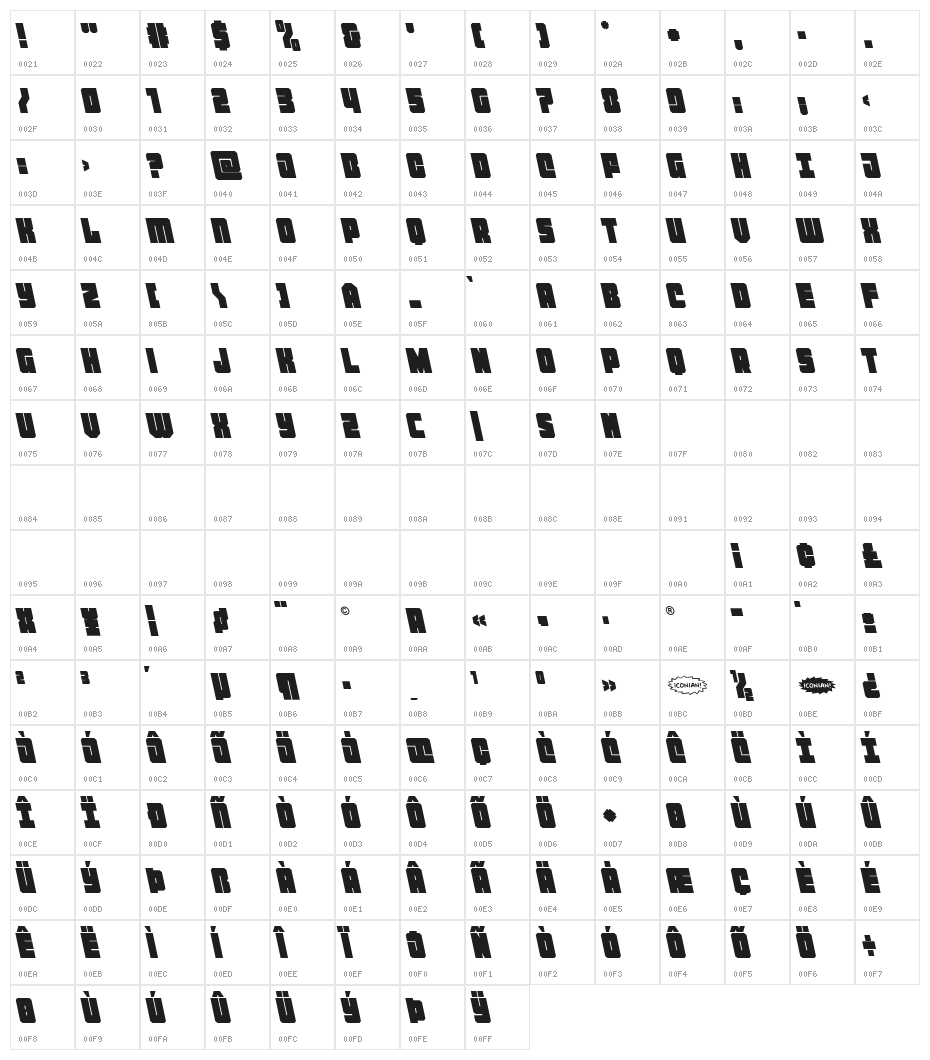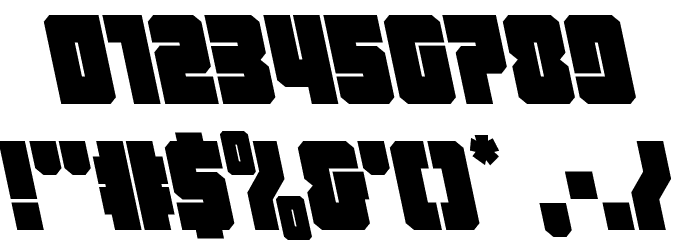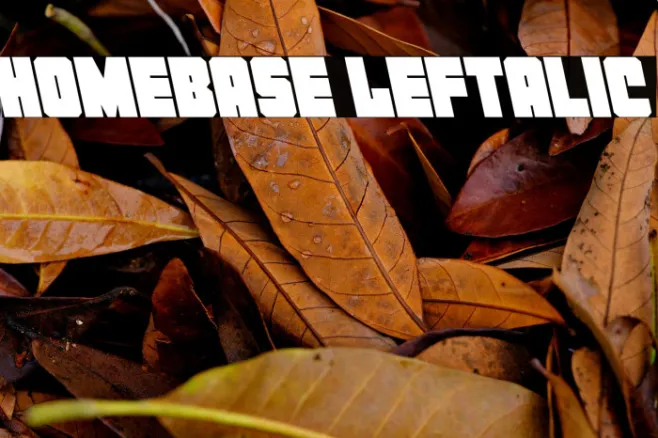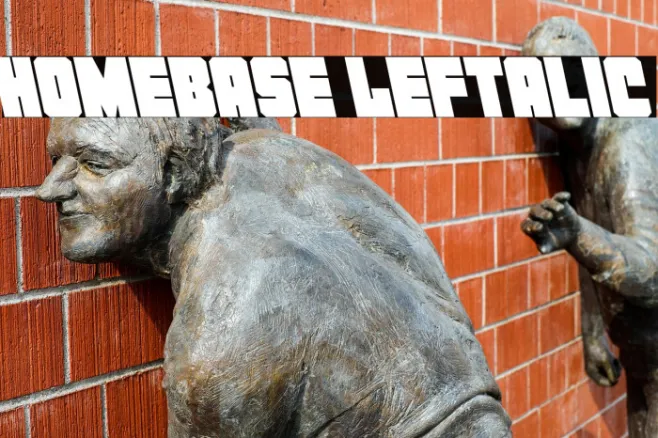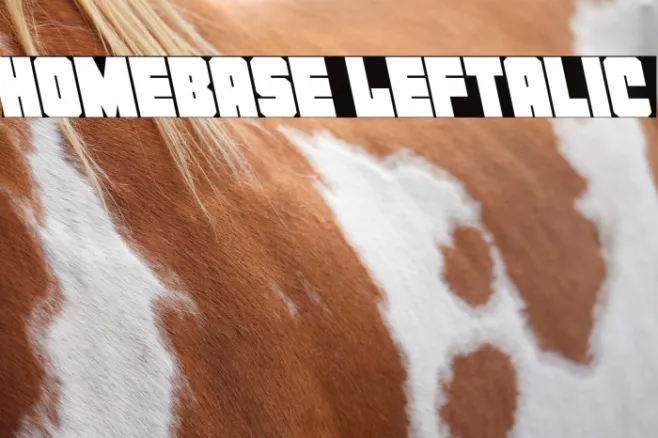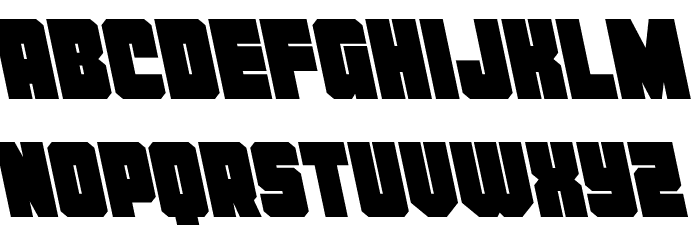
Homebase Leftalic Font
Homebase Leftalic Description
This font features a bold, angular design with a strong geometric influence, characterized by its thick, blocky letters and sharp edges. The uppercase and lowercase letters maintain a consistent weight, creating a uniform appearance. The numbers and special characters follow the same bold style, ensuring cohesion across all elements. The font's distinct style is eye-catching and impactful, making it suitable for attention-grabbing designs. Its angular nature gives it a modern, edgy feel, while the uniformity in stroke width provides a sense of stability and strength.